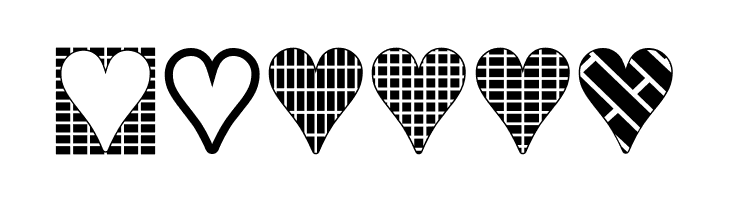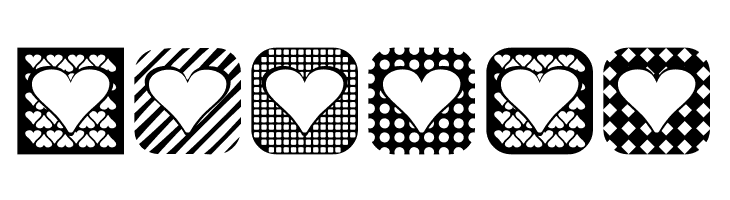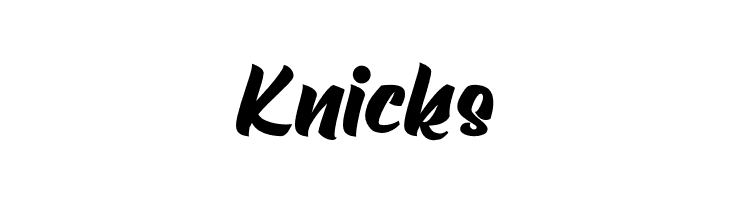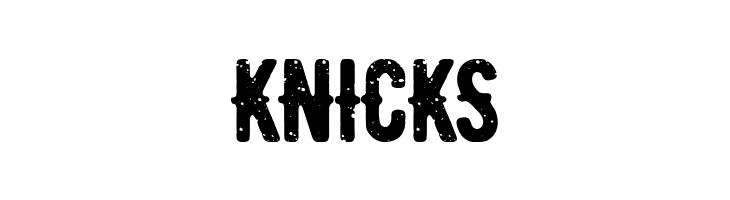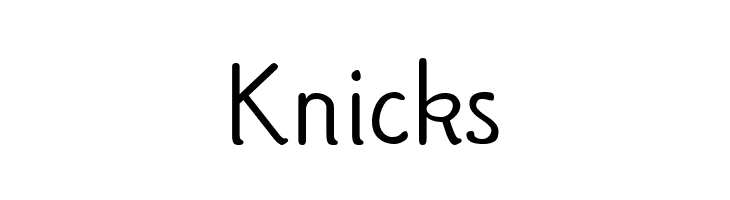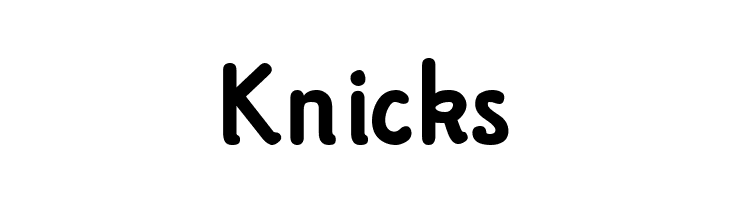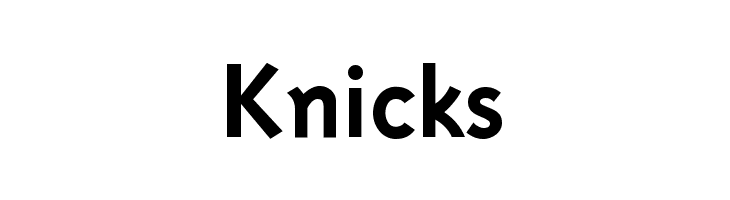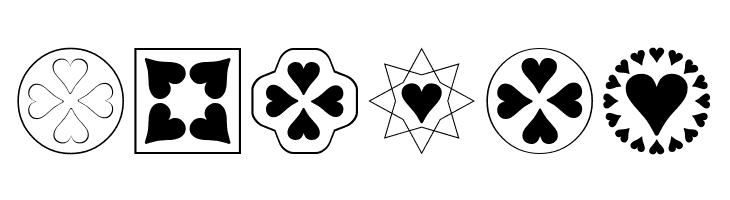
A modern, rounded font with excellent readability and a friendly appearance.
A bold, rounded font with a playful and friendly style.
An elegant italic font with smooth curves and a sophisticated style.
A bold, energetic script font with a hand-drawn, dynamic style.
A bold, distressed font with a vintage, handcrafted feel.
Casual, connected handwritten script with playful loops.